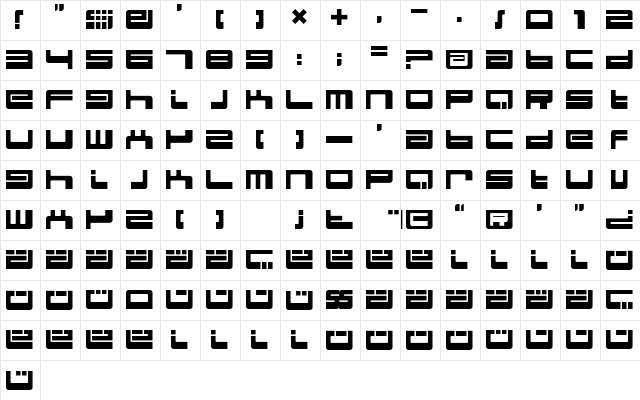
BDEject Regular
Design Context for BDEject Typeface
BDEject is a composed and adaptable typeface that performs quietly and consistently across a wide range of design contexts.